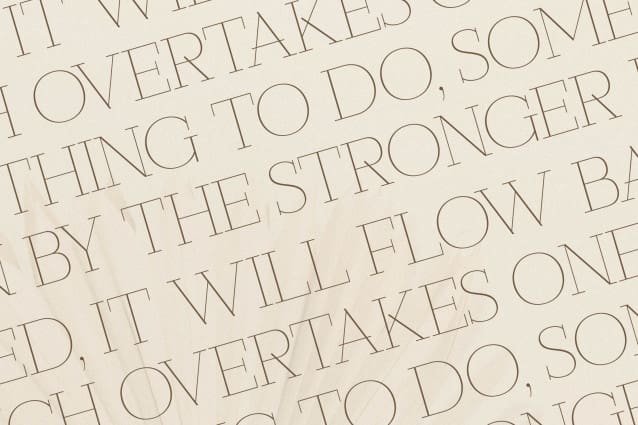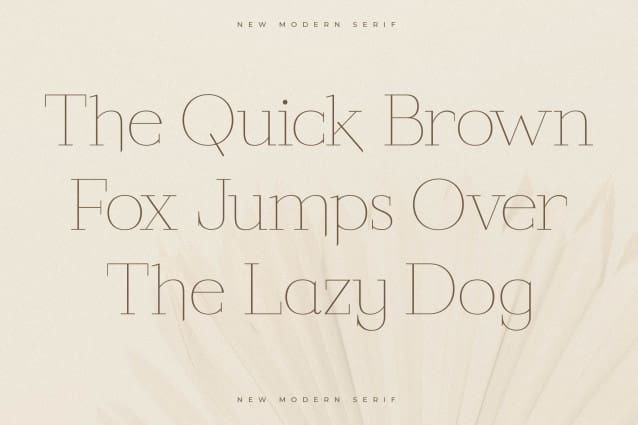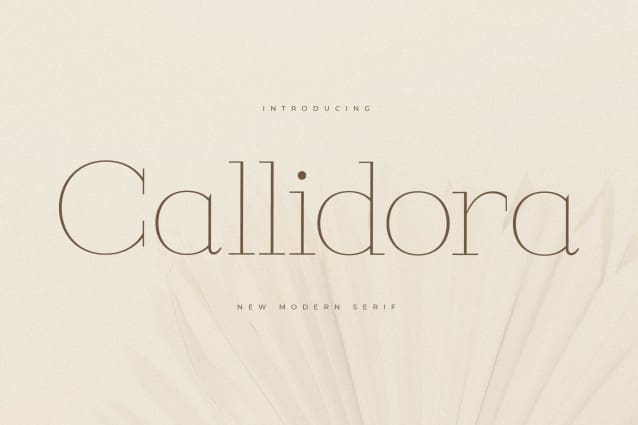
Callidora Font
Callidora Font is a serif modern and classic typeface that has own unique style & modern look. This typeface is perfect for an elegant & luxury logo, book or movie title design, fashion brand, magazine, clothes, lettering, quotes, and so much more.